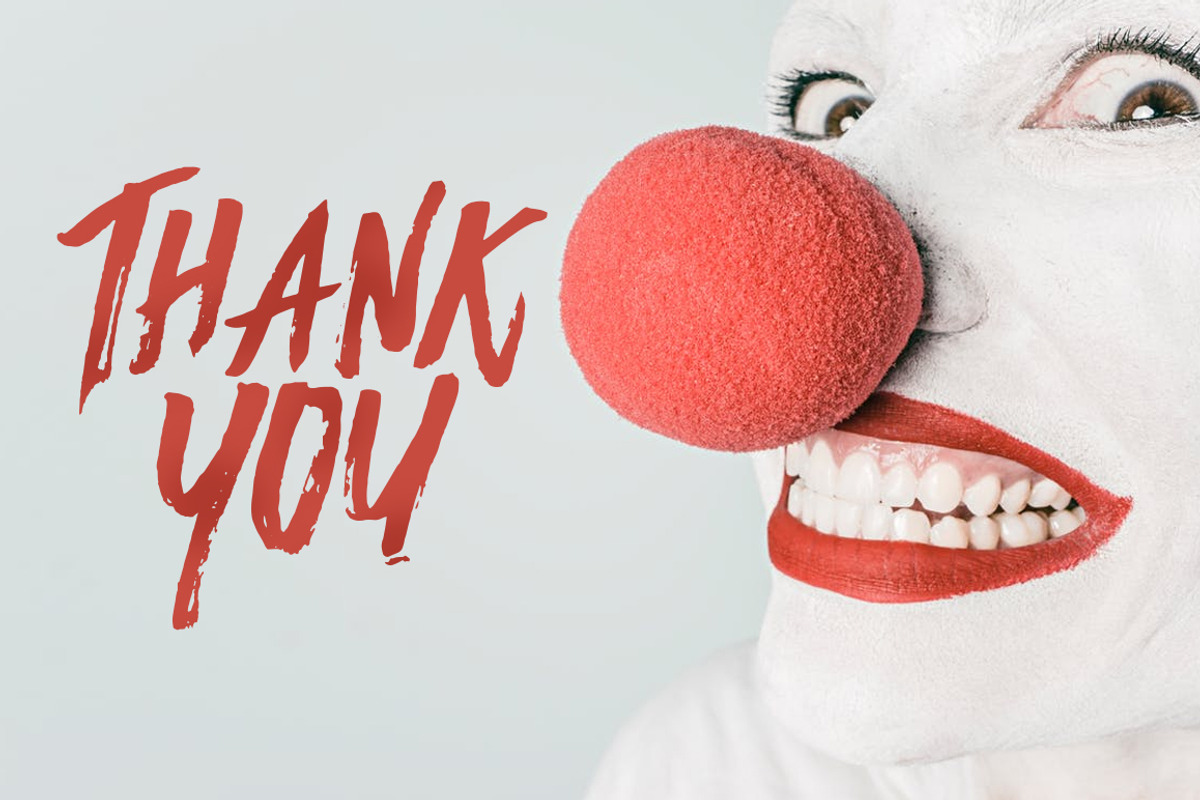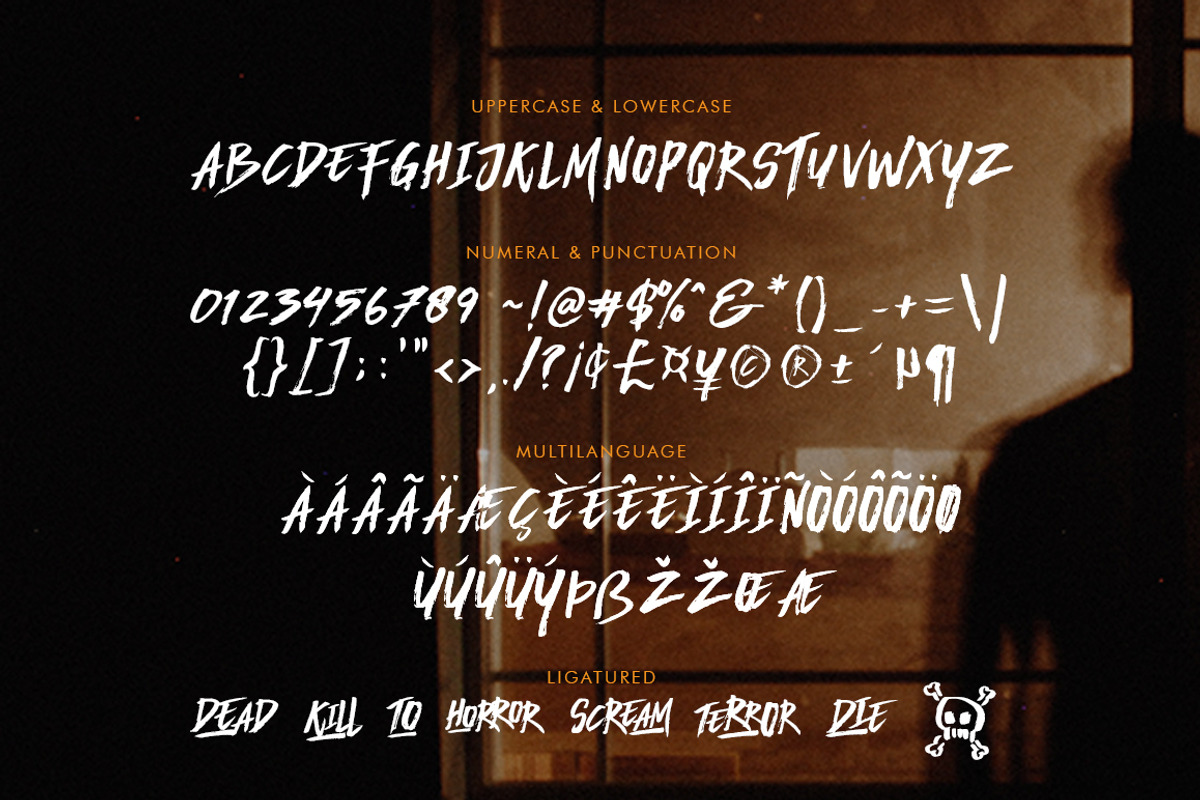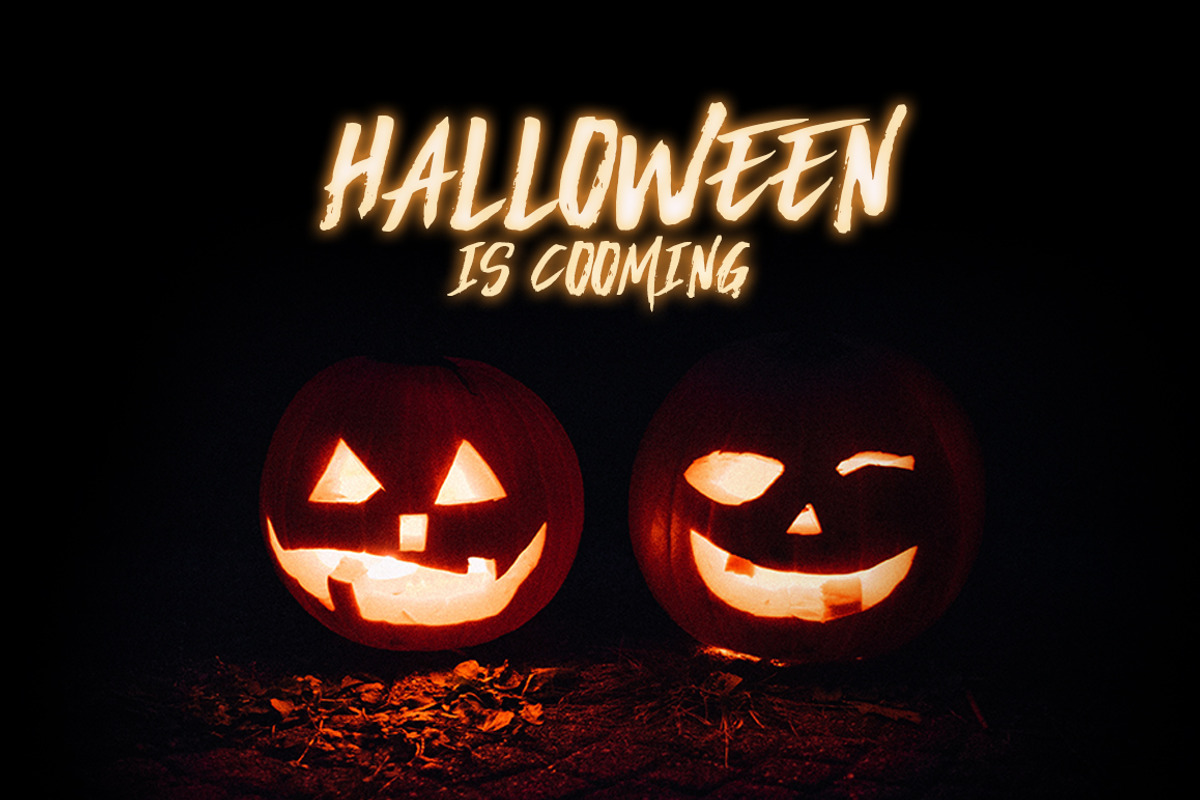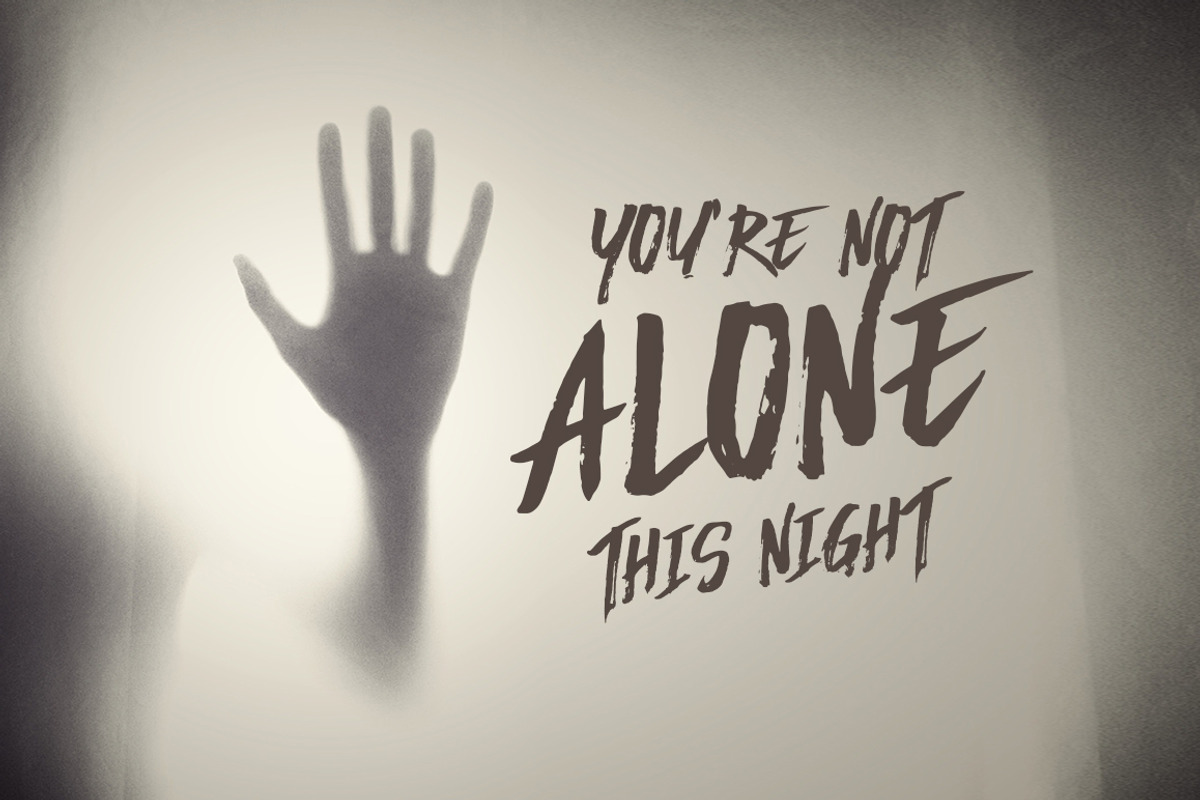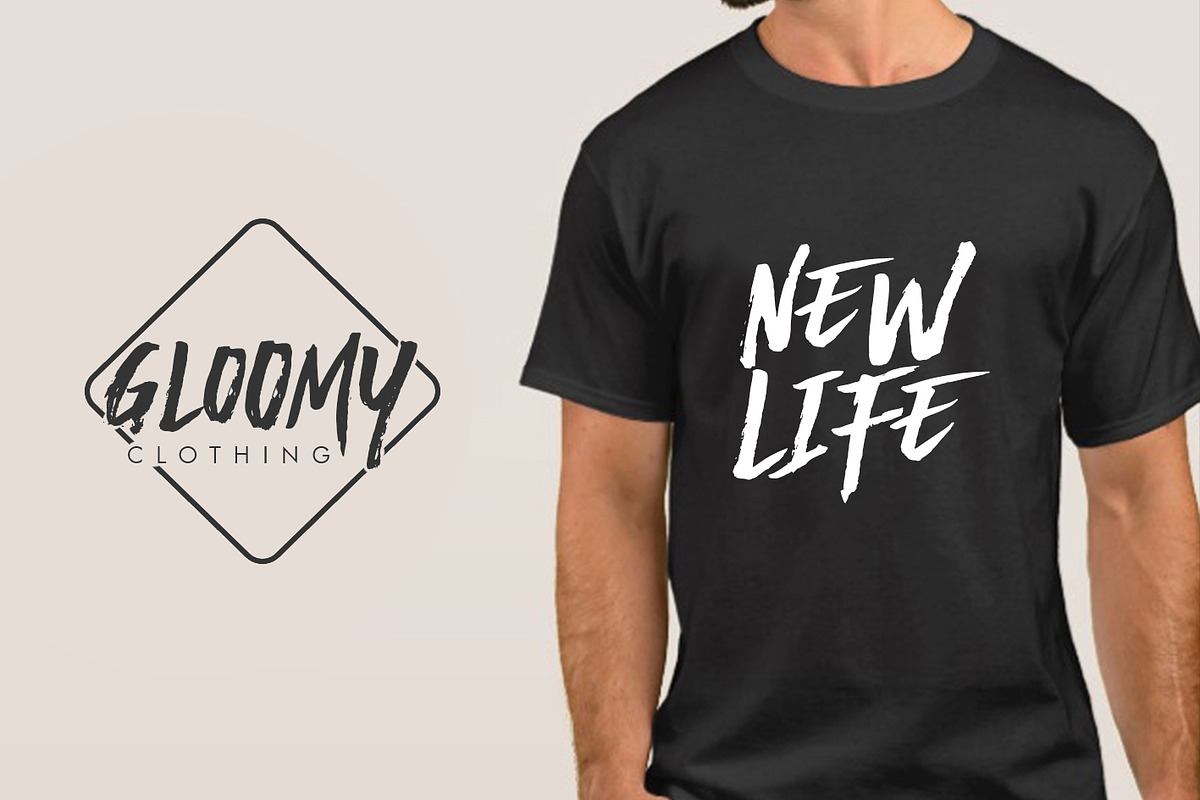
Gloomy Line Brush Font
Gloomy Line Brush is a fun market pen font with a quirky style and feel to it! It’s rough approach makes it the perfect companion for something you want to be edgy and stand out from the crowd.